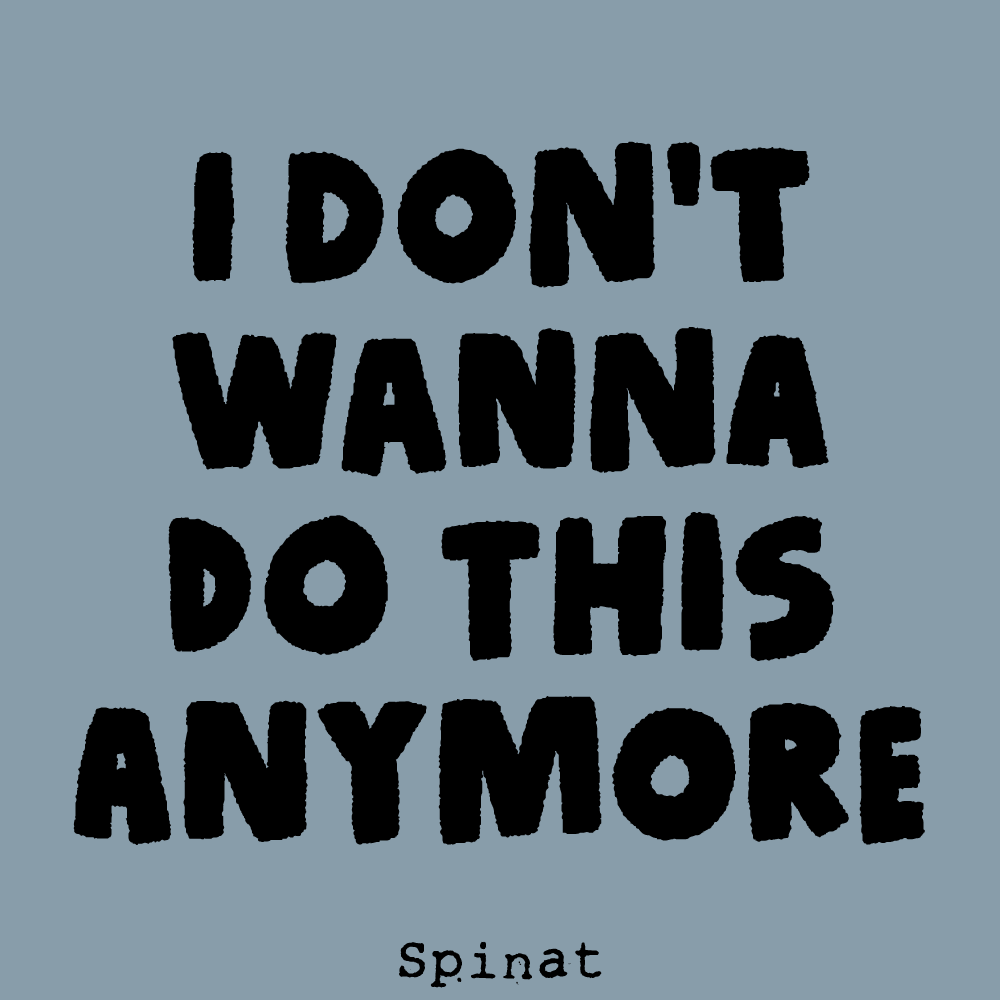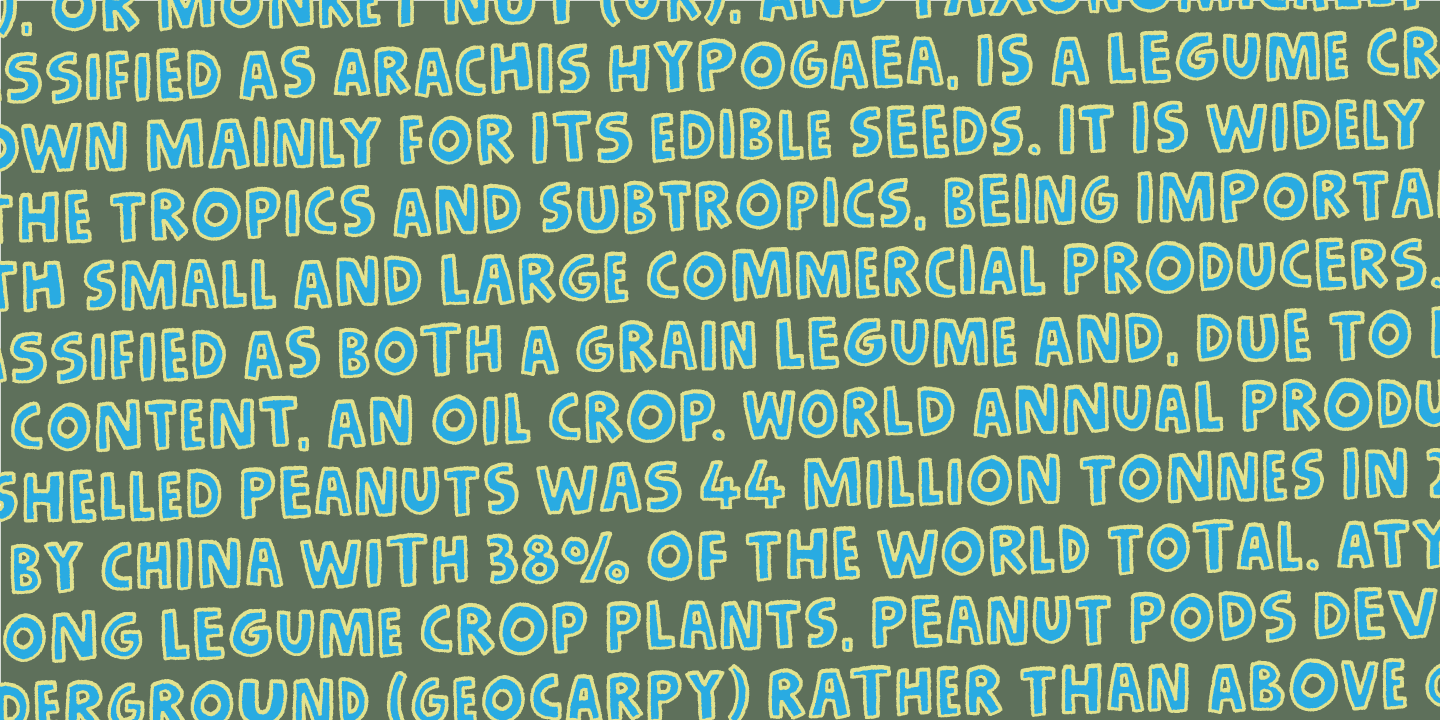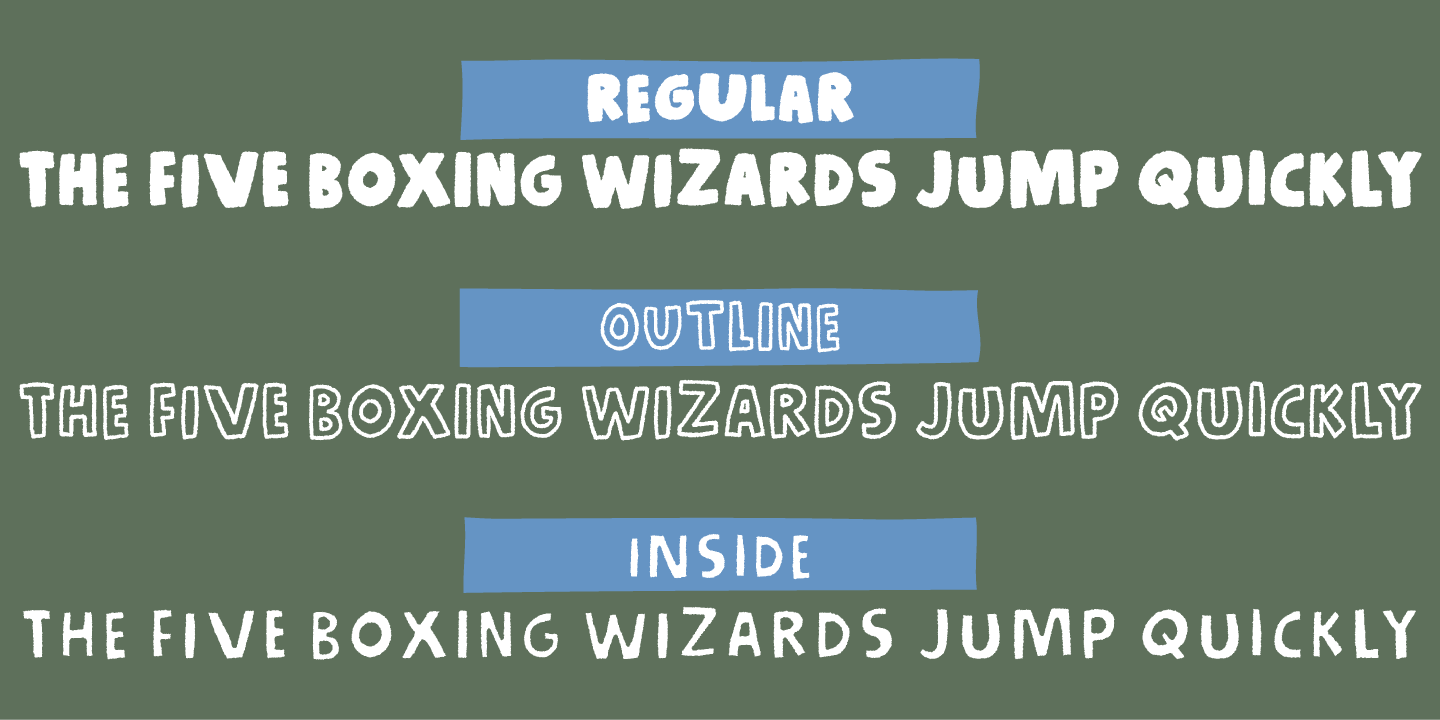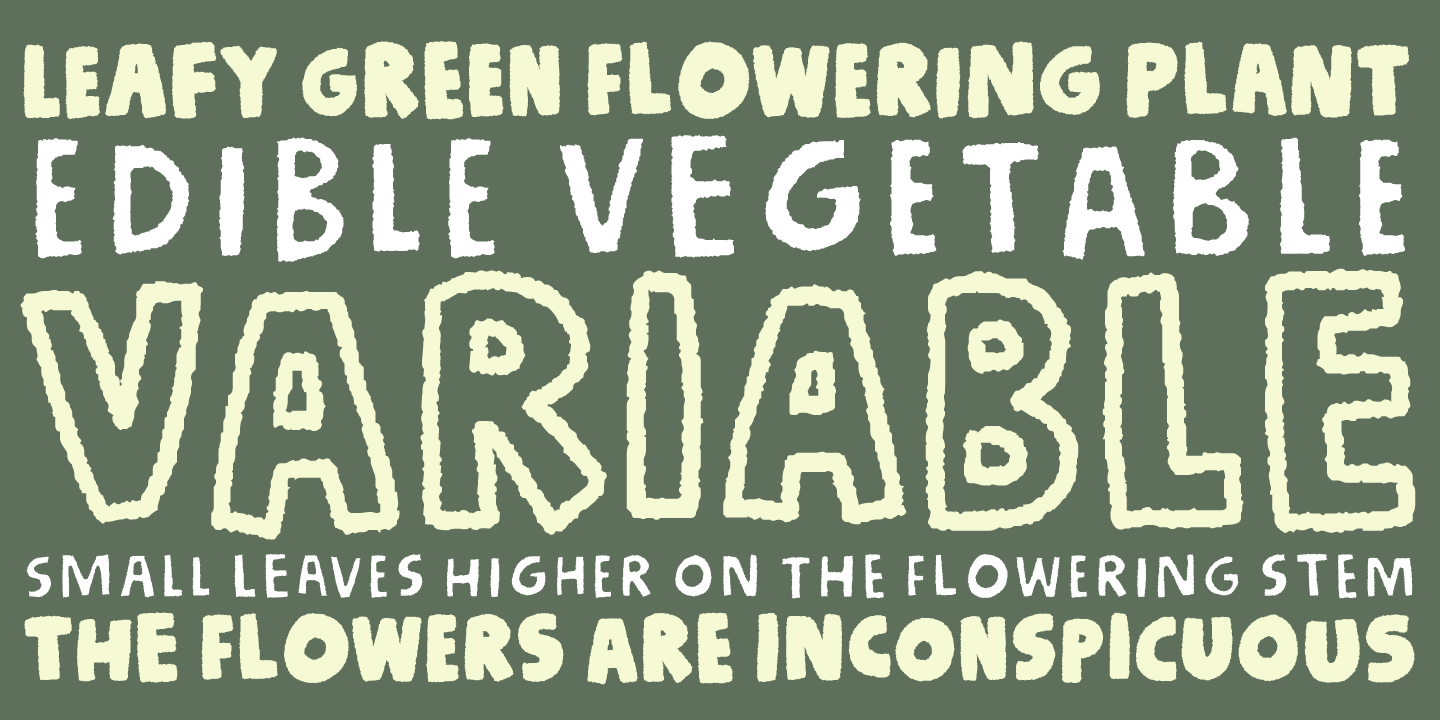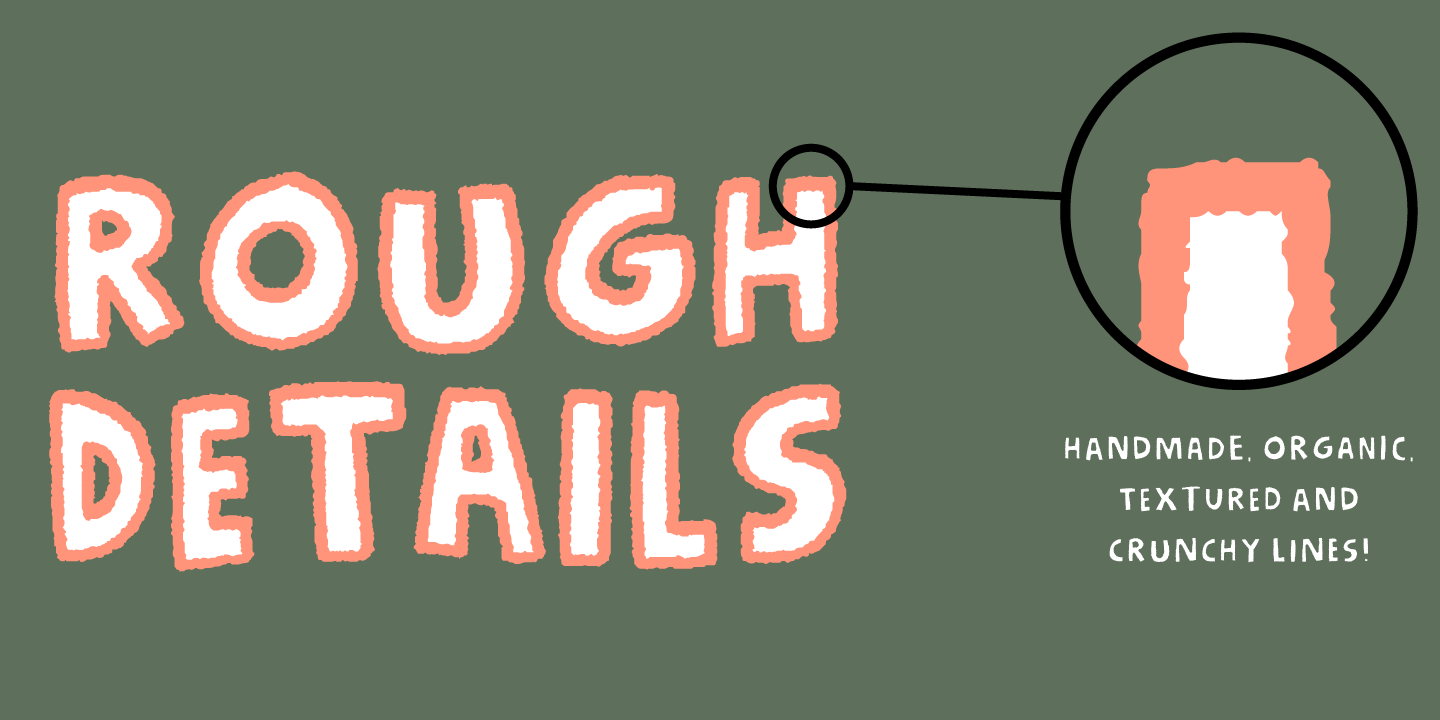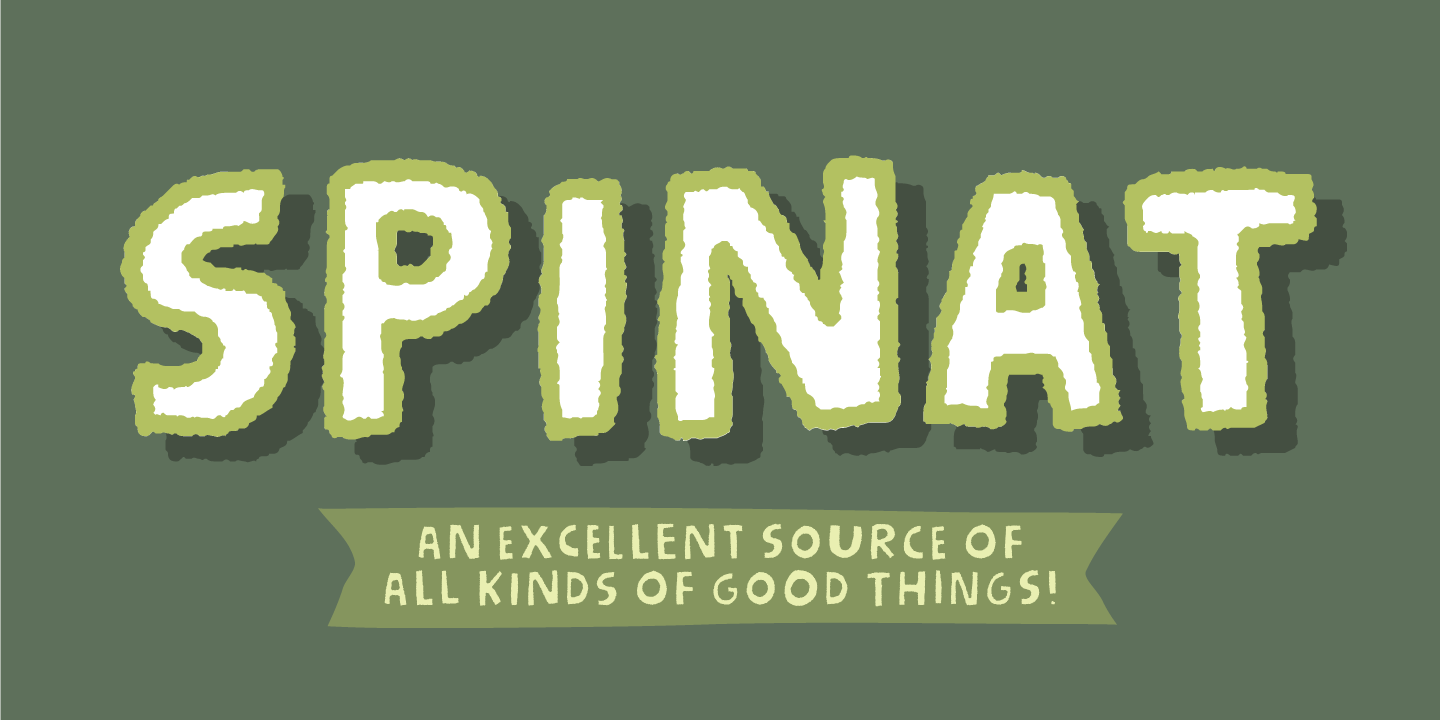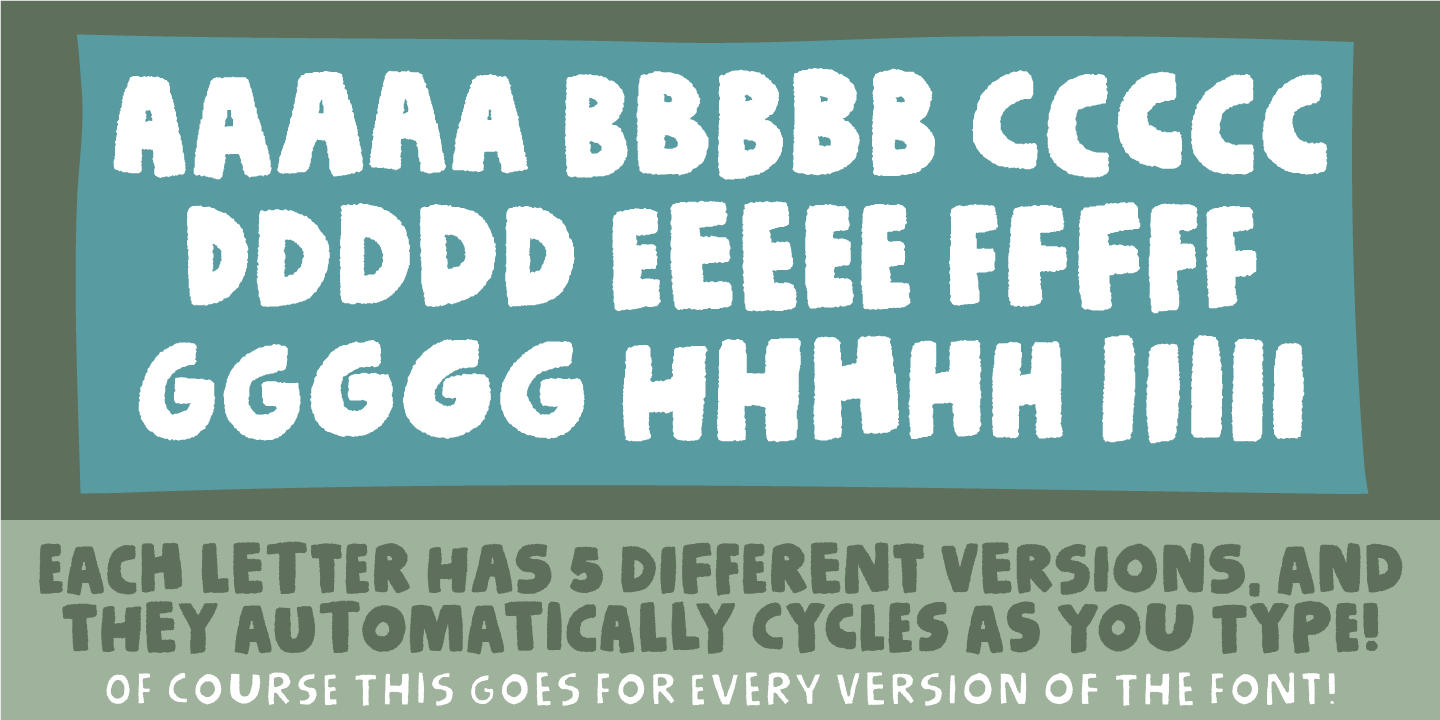
Spinat
Spinat is spinach in danish. I like all kinds of things with spinach: salads, lasagne, fish, burgers and even with spinach! Yes, I love spinach so much I can eat it without anything else! :)
I hope you too like spinach or even Spinat - it has 5 different versions of each letter and multilingual support